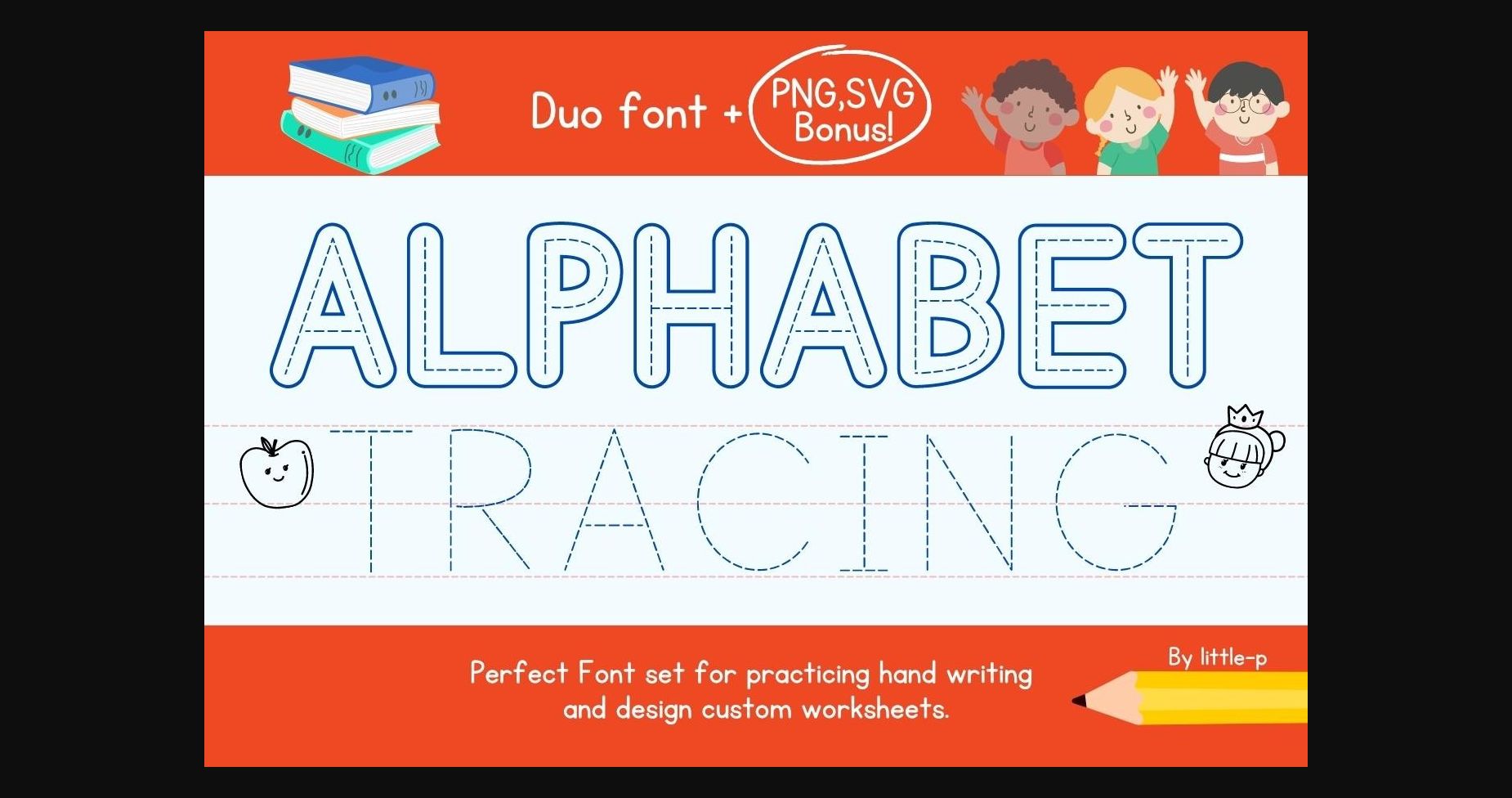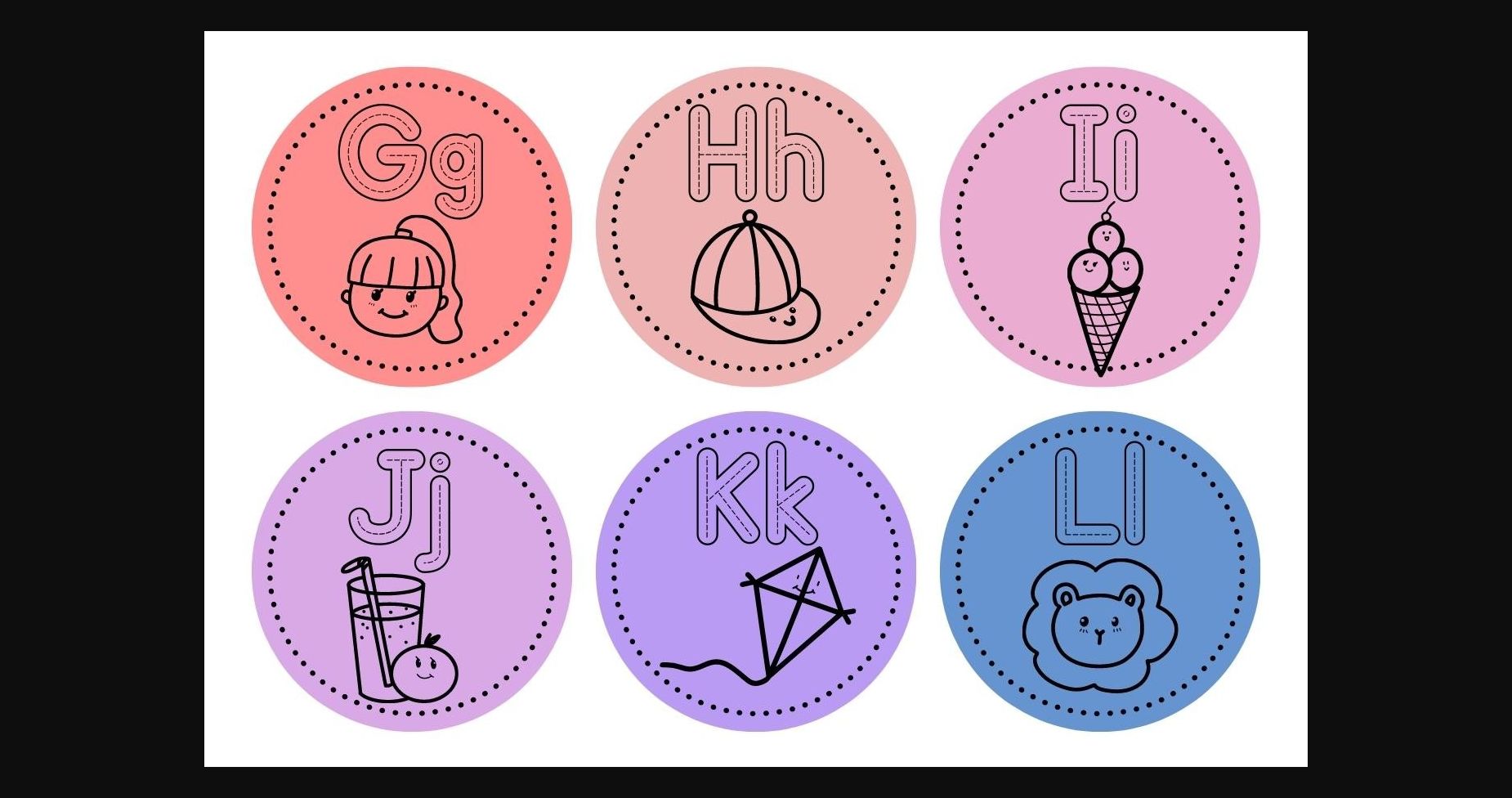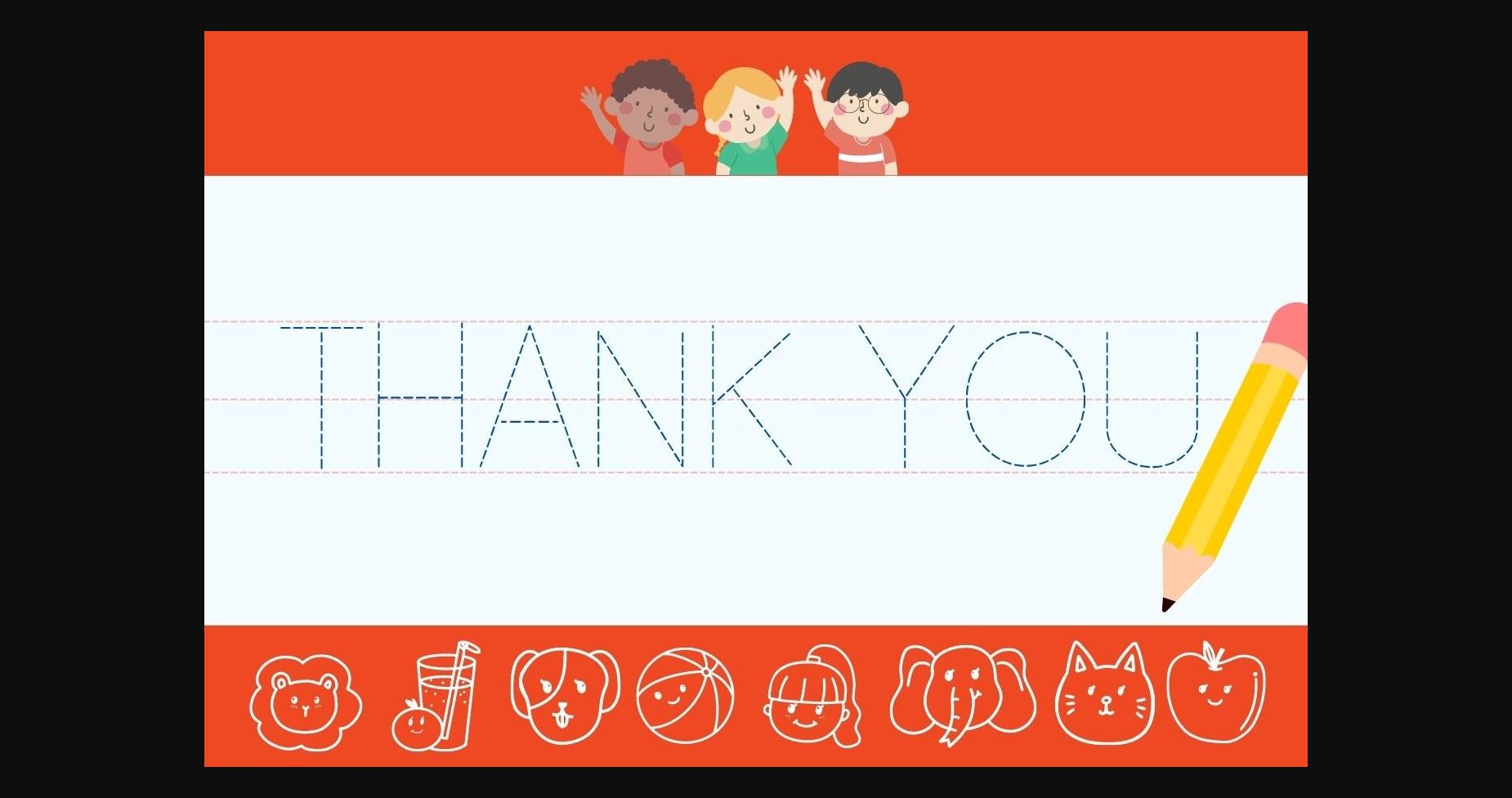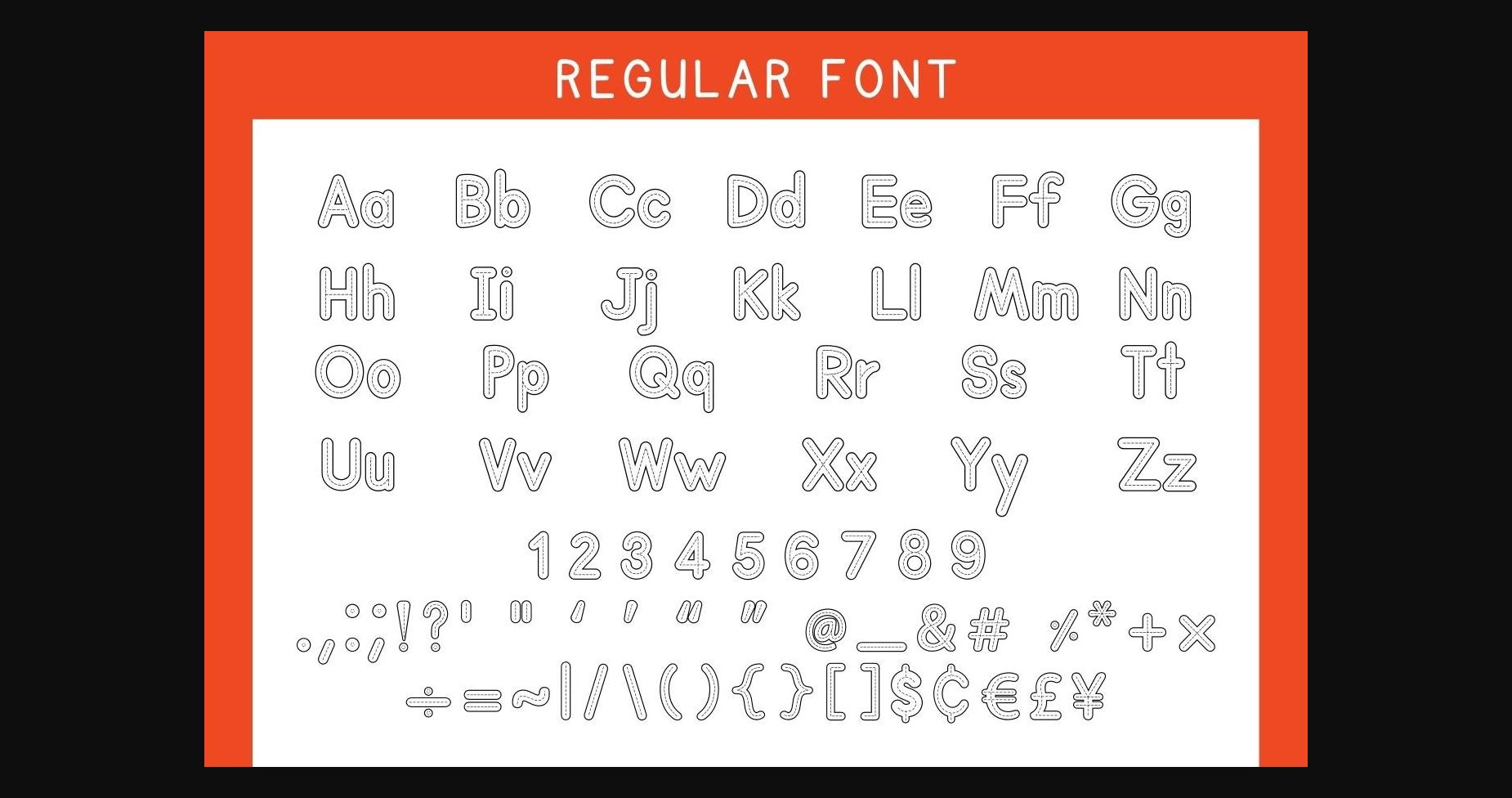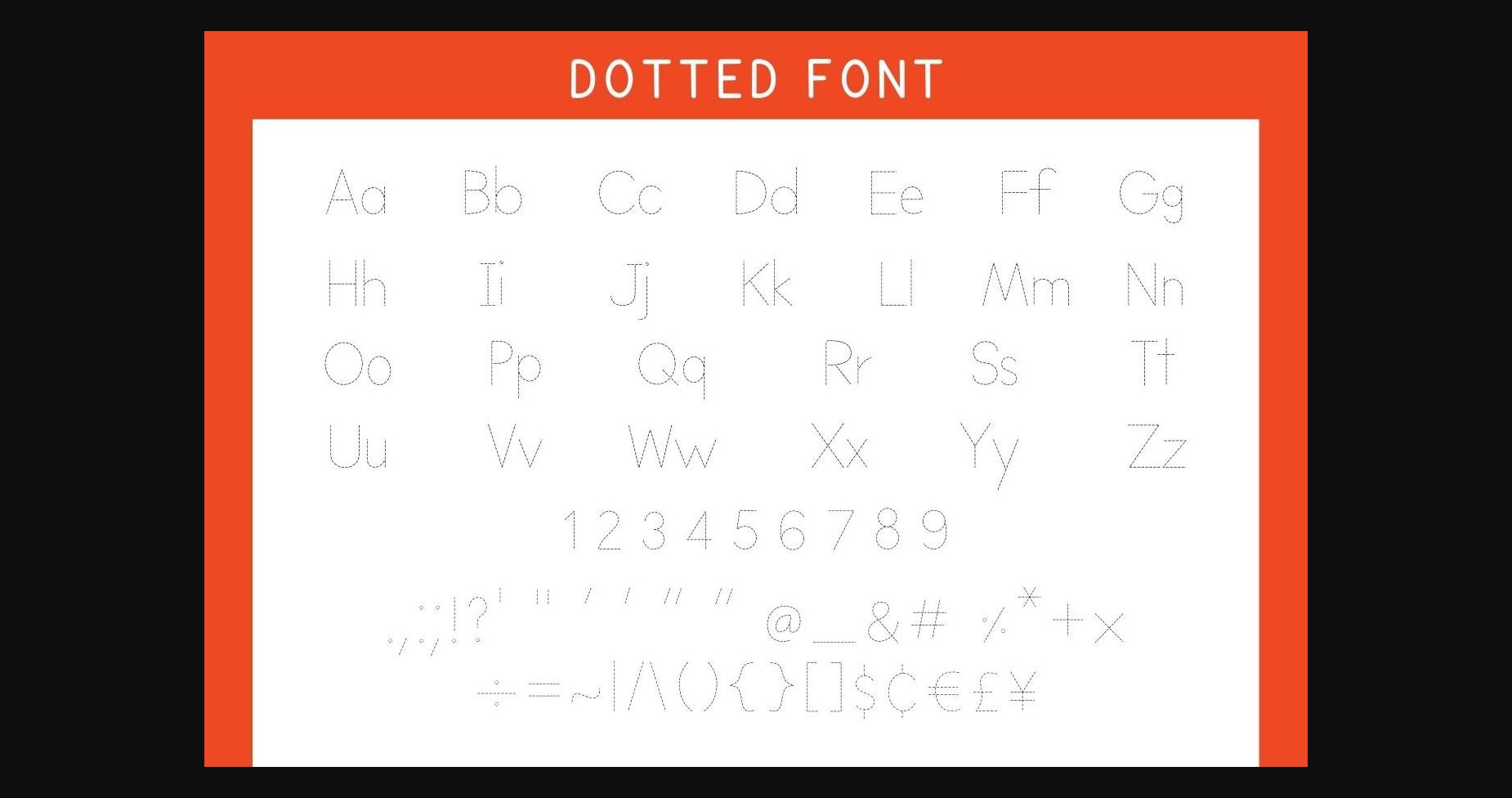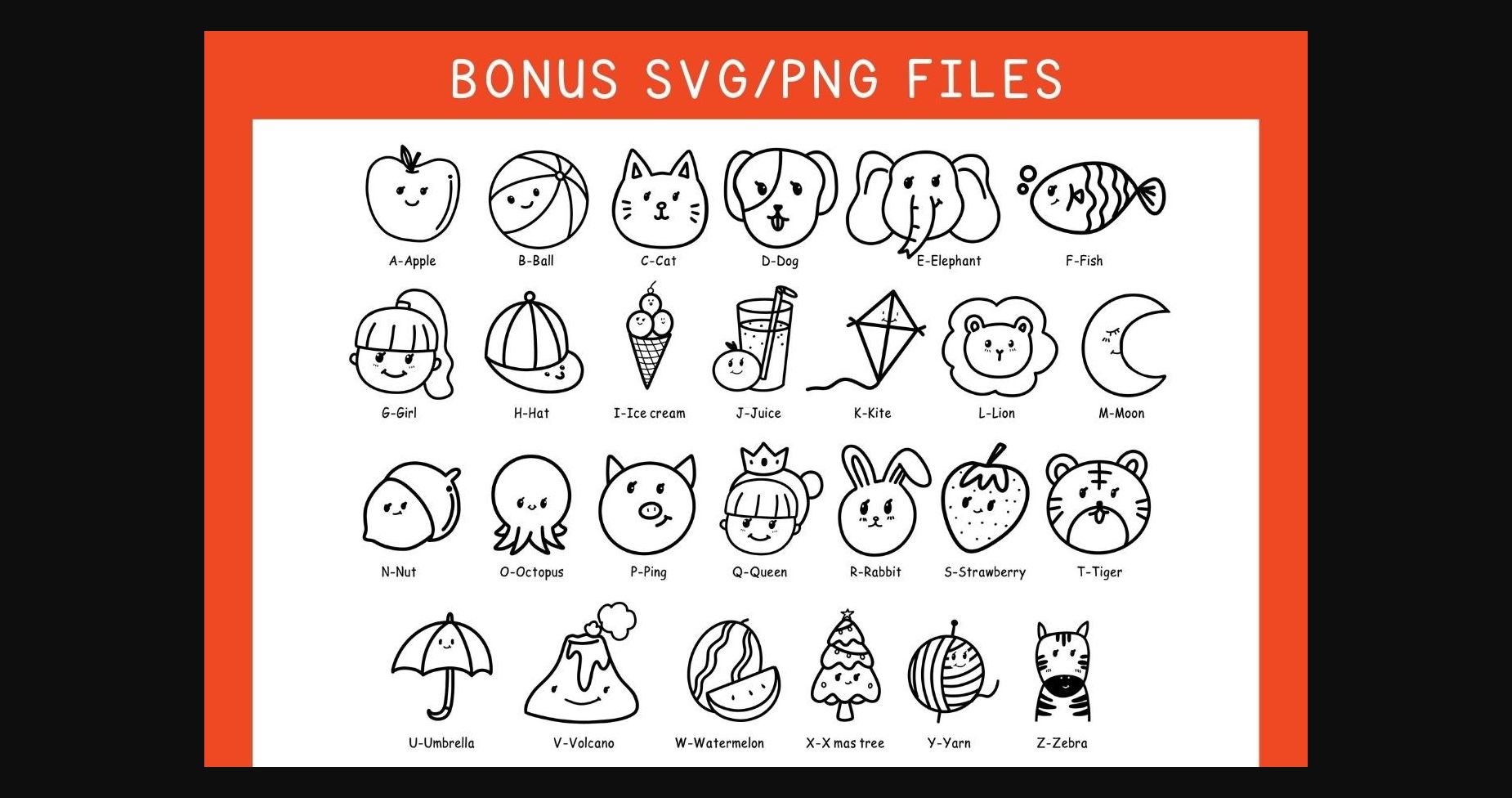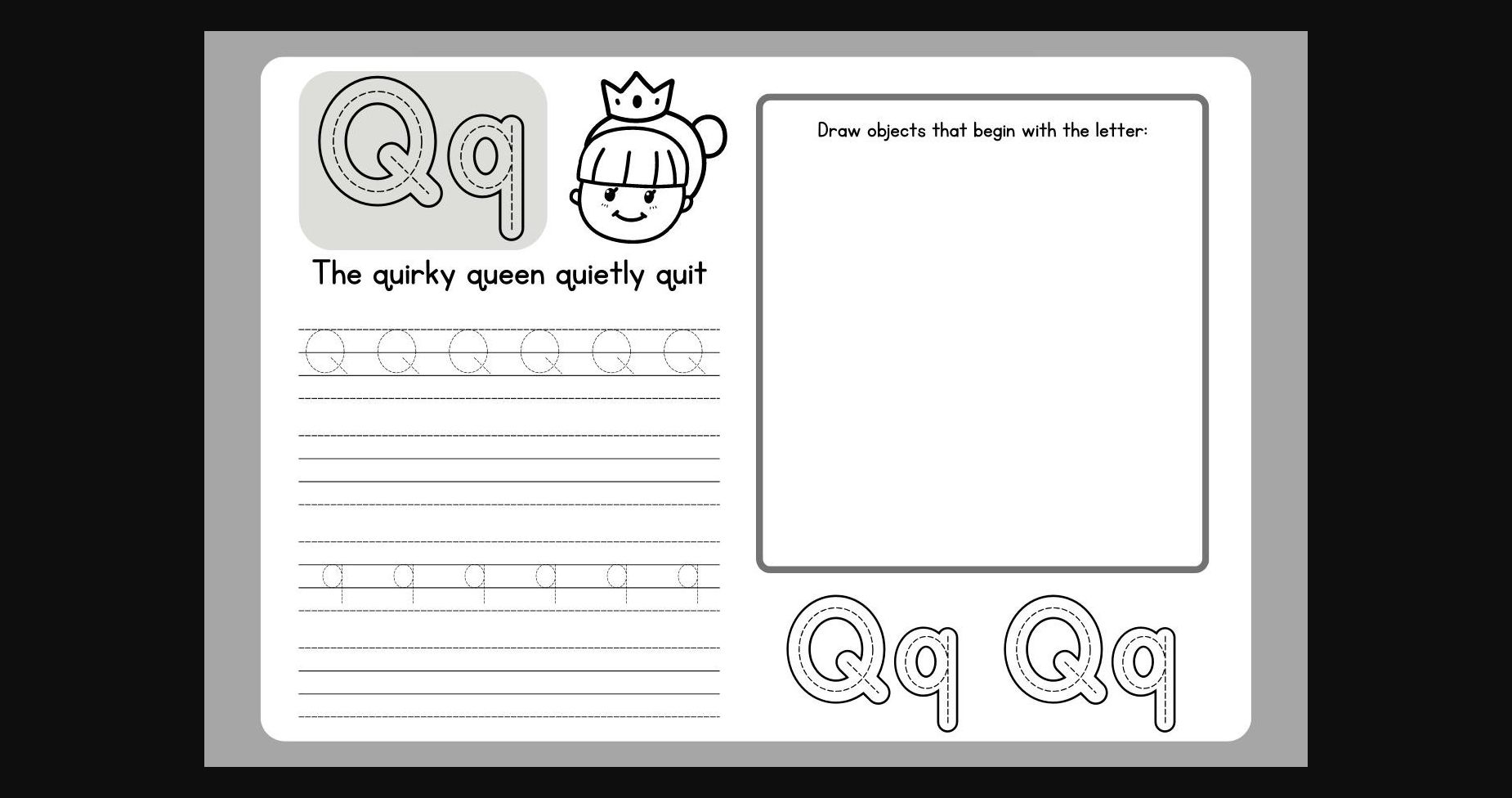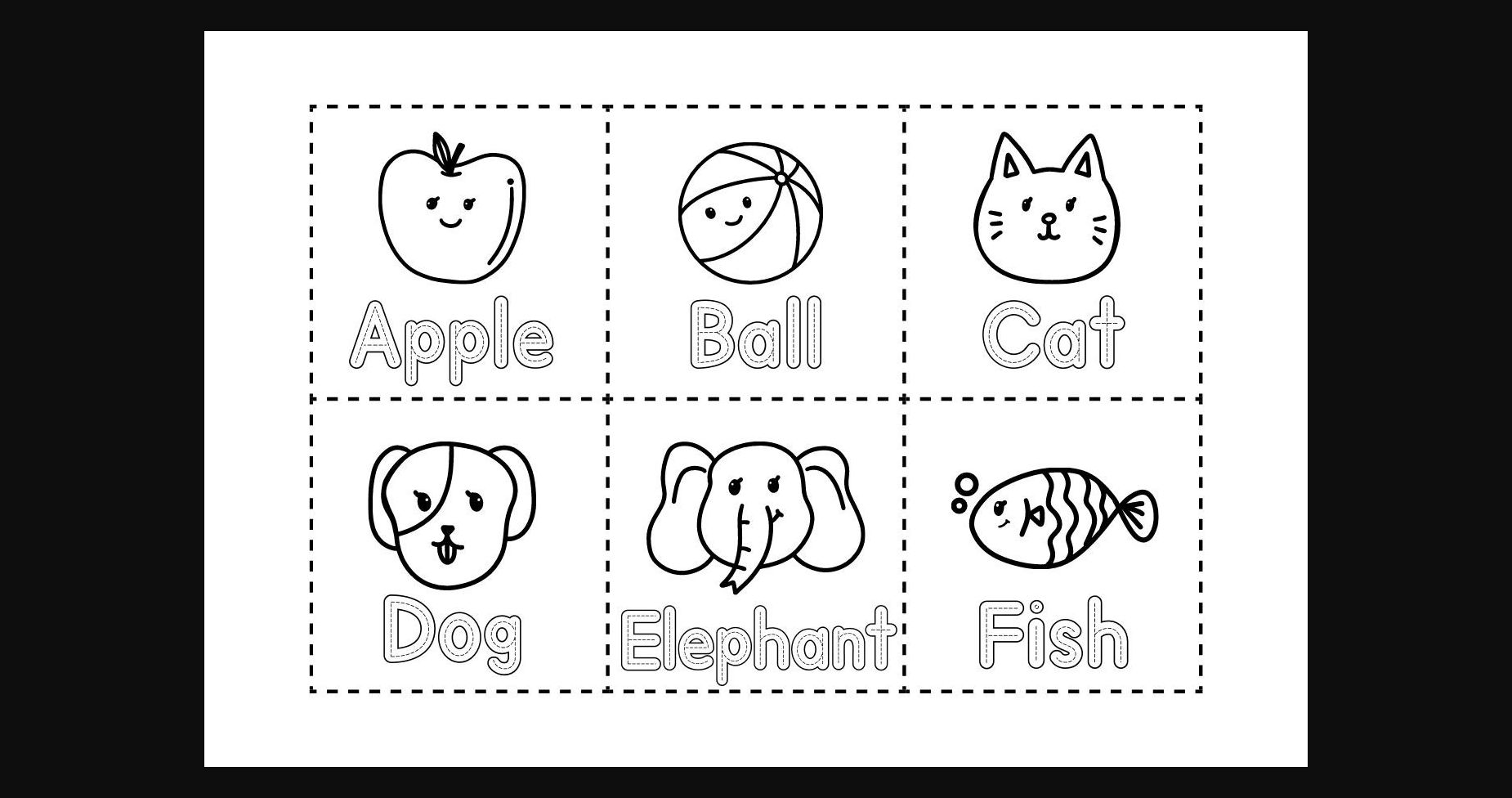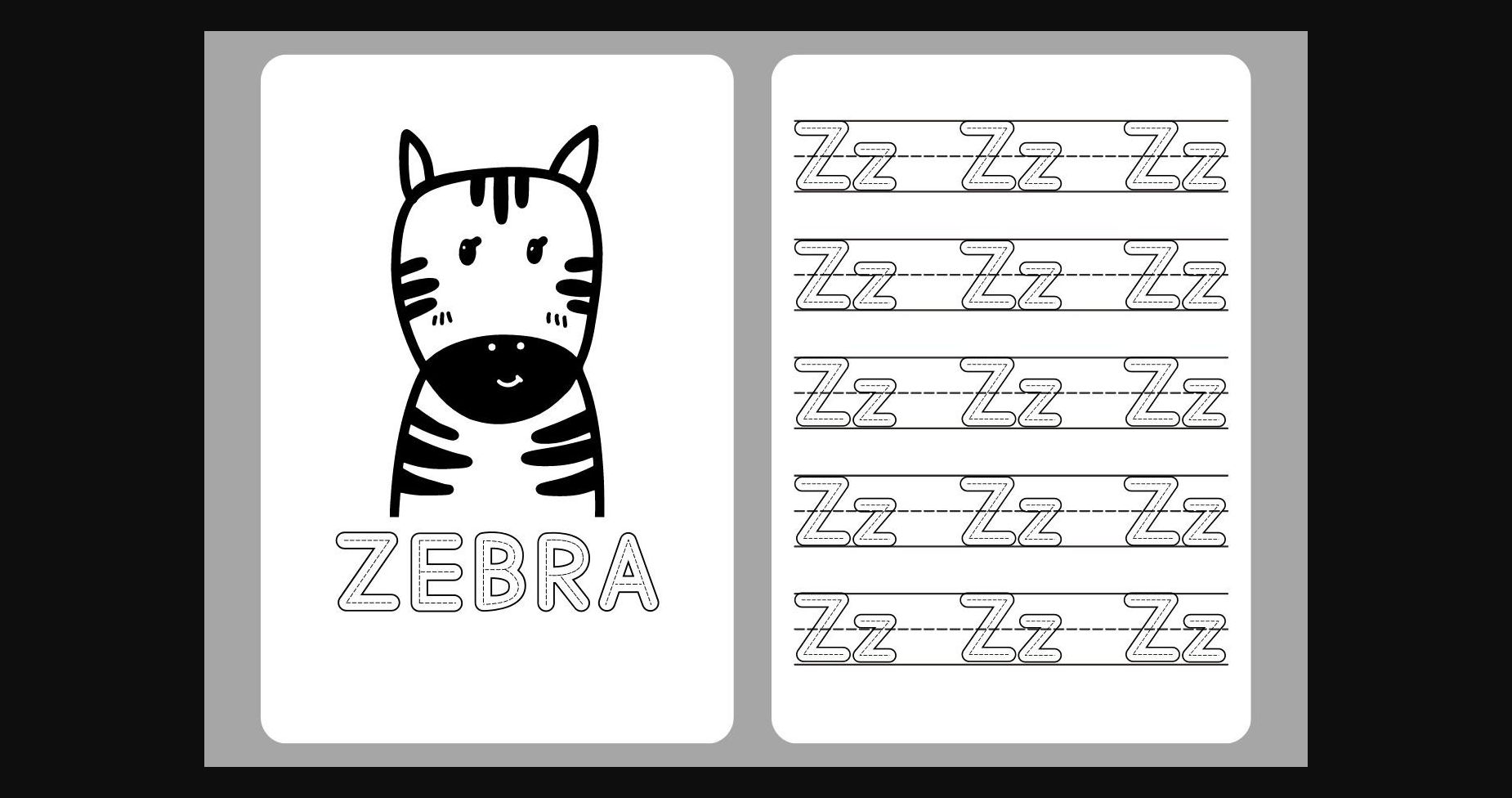
Alphabet Tracing Font
About Alphabet Tracing Font
Introducing “Alphabet Tracing,” the essential font for studying and practicing writing. Designed with simplicity in mind, this basic font is perfect for worksheets and learning materials aimed at students, especially those in kindergarten and elementary school. Alphabet Tracing provides clear and legible letterforms that aid in learning proper letter formation and handwriting skills. Whether it’s practicing letter recognition, tracing worksheets, or creating educational materials, this font is an invaluable tool for educators and parents. Let Alphabet Tracing be your go-to font for enhancing the learning experience and helping students develop strong foundational writing skills. Unlock the potential of this font as you embark on a journey of knowledge and mastery with Alphabet Tracing.